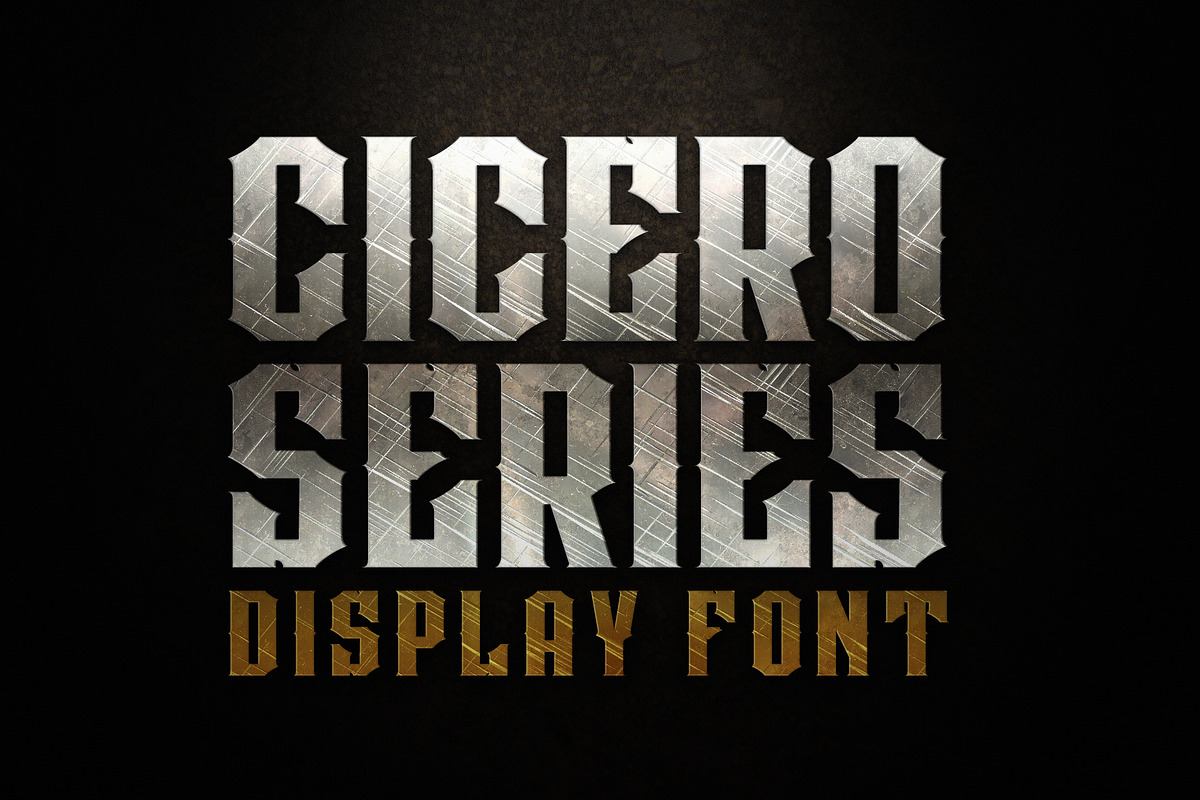
CICERO SERIES DISPLAY FONTS Free Download
Cicero Series Display Fonts Free Download
Sophisticated, elegant, and designed for impactful visuals, Cicero Series Display Fonts Free Download is a versatile font family created for display purposes. Perfect for headlines, logos, posters, branding, and other creative projects, these fonts bring a sense of elegance and style to your typography.
With a range of well-balanced letterforms, sharp details, and sophisticated design, the Cicero Series is ideal for projects that require both readability and a premium, timeless feel. Whether you’re working on a luxurious brand identity, an editorial layout, or a high-end promotional piece, these fonts ensure your text stands out.